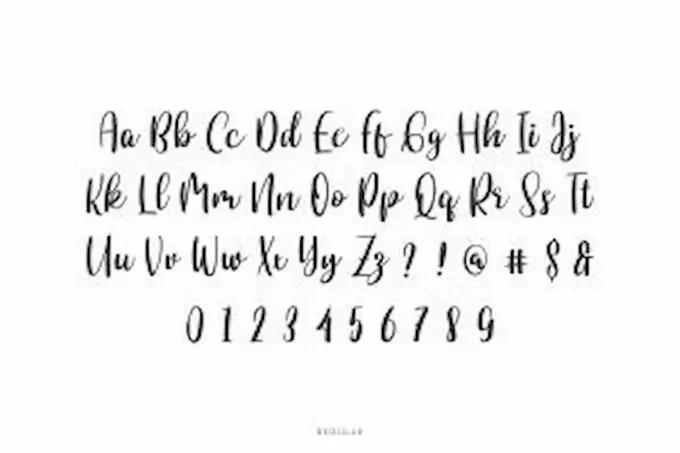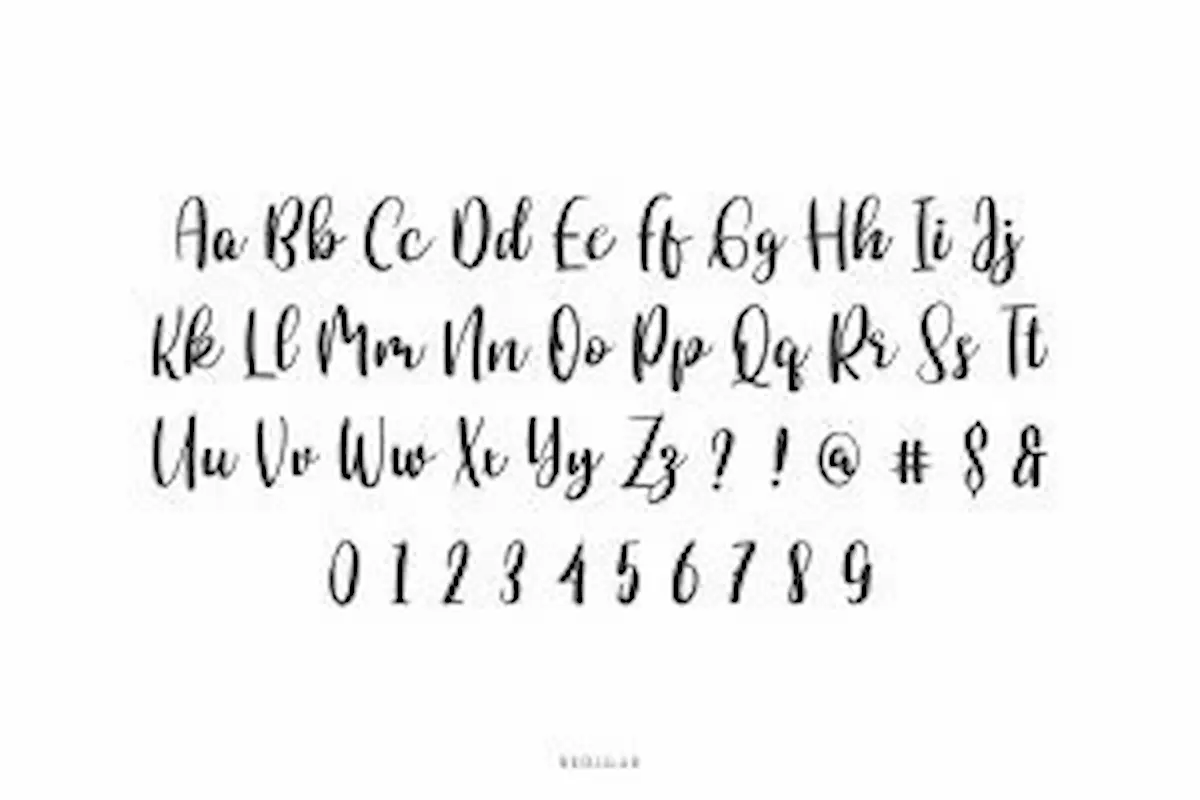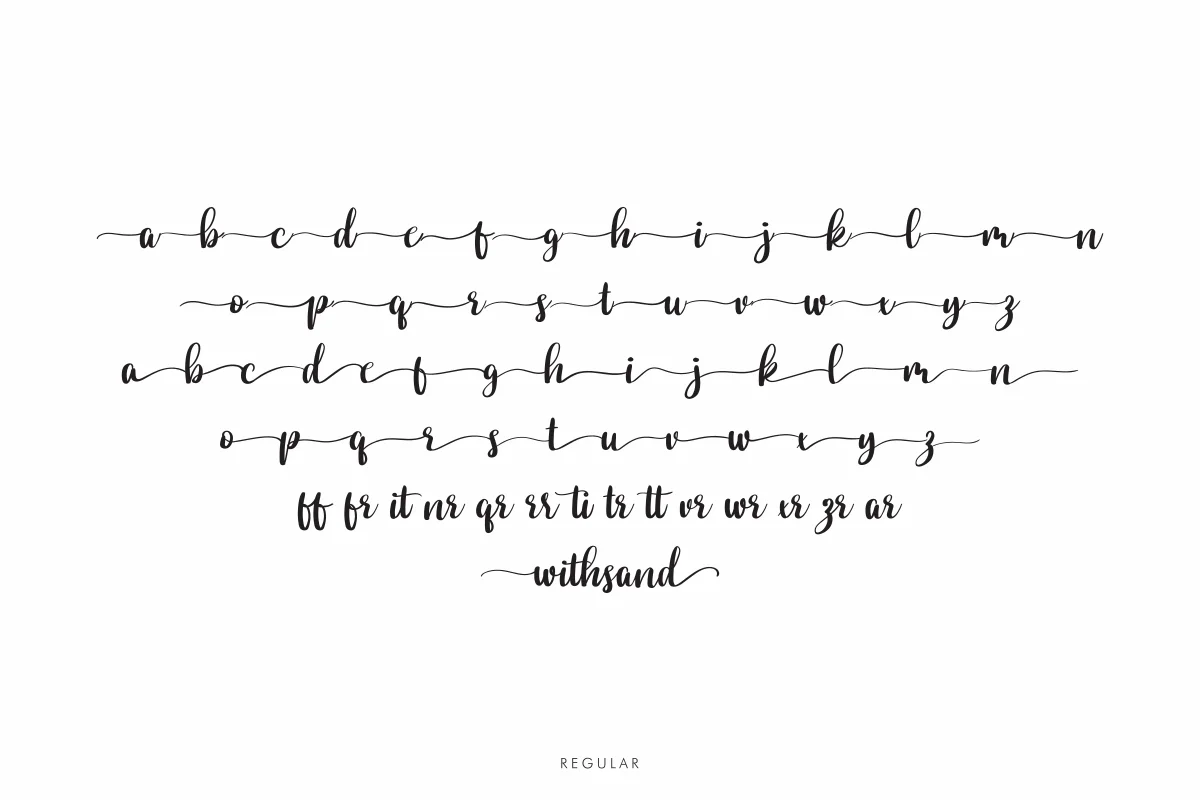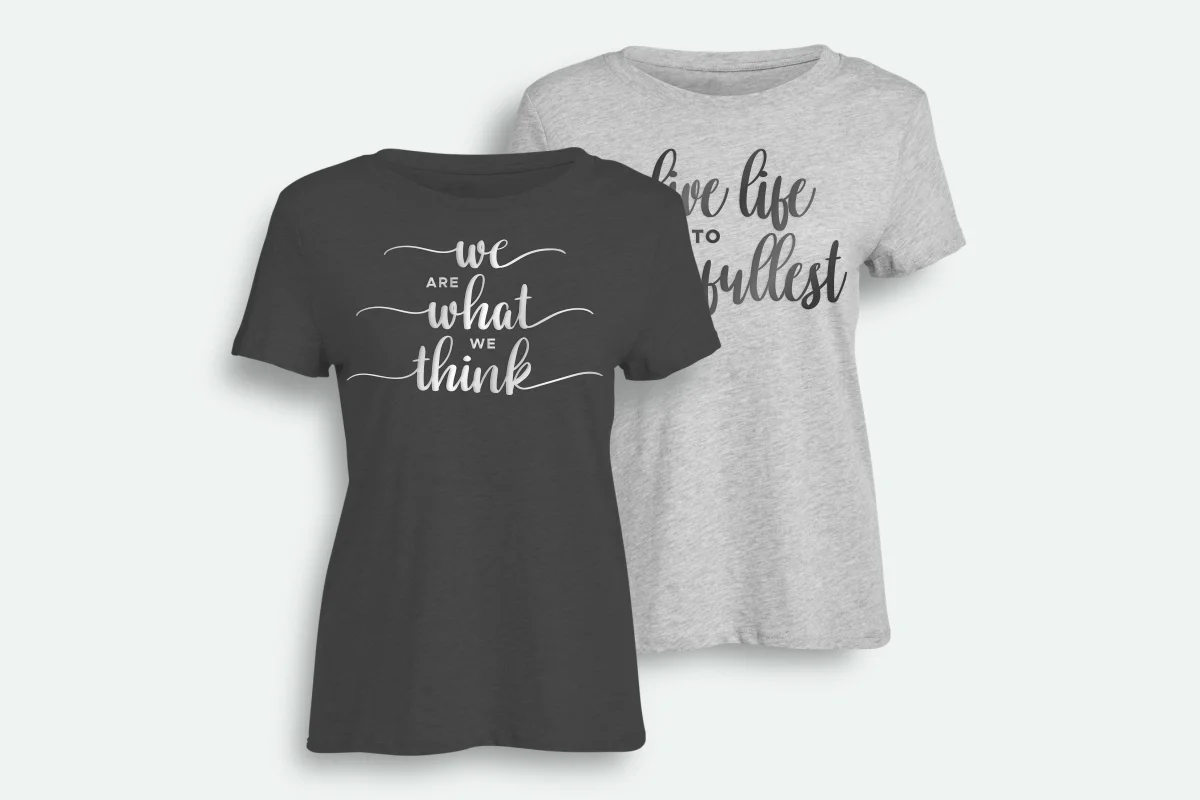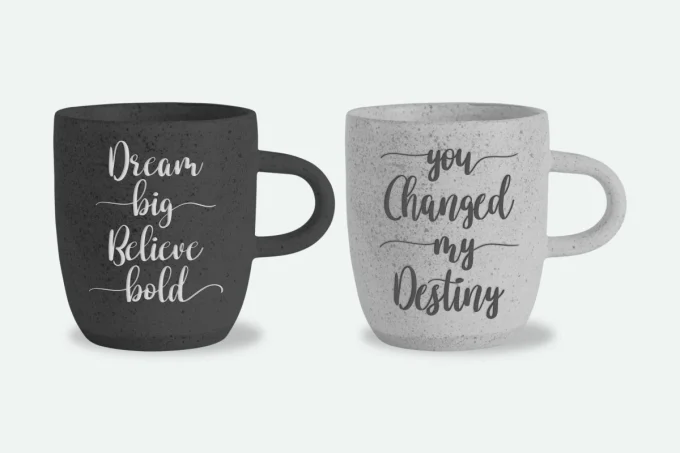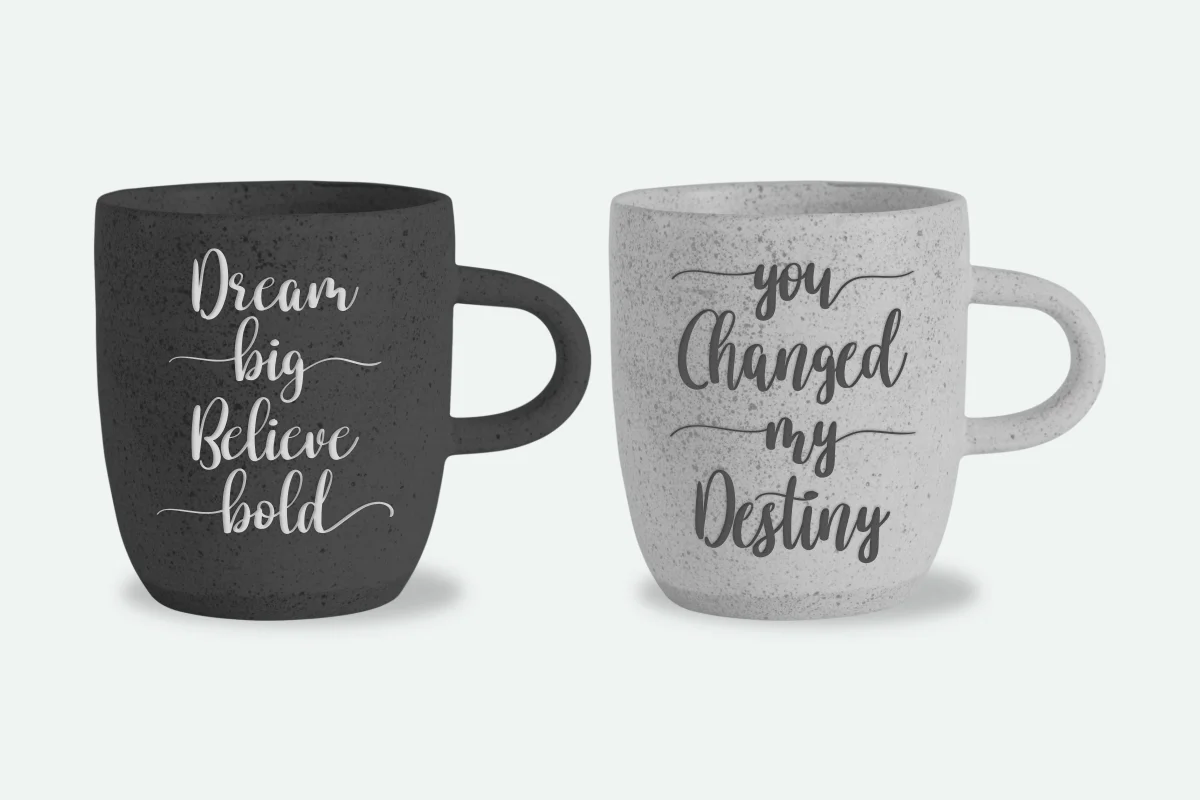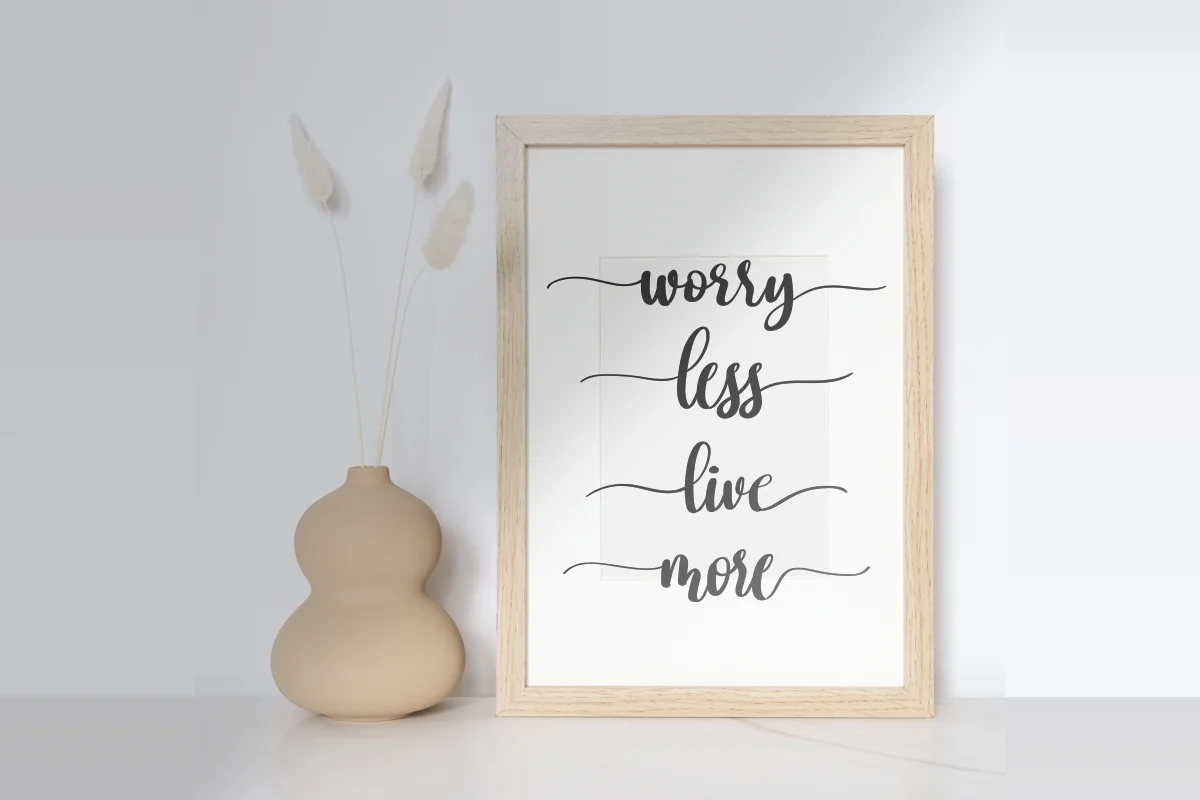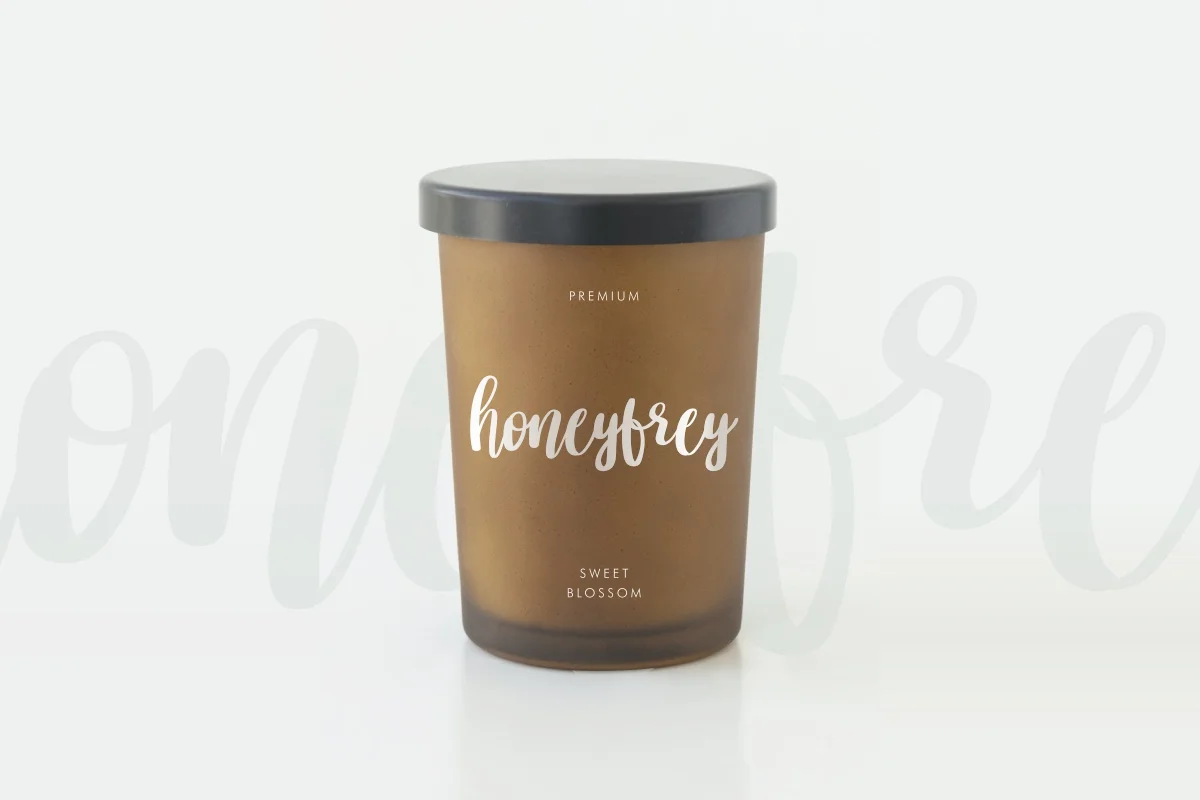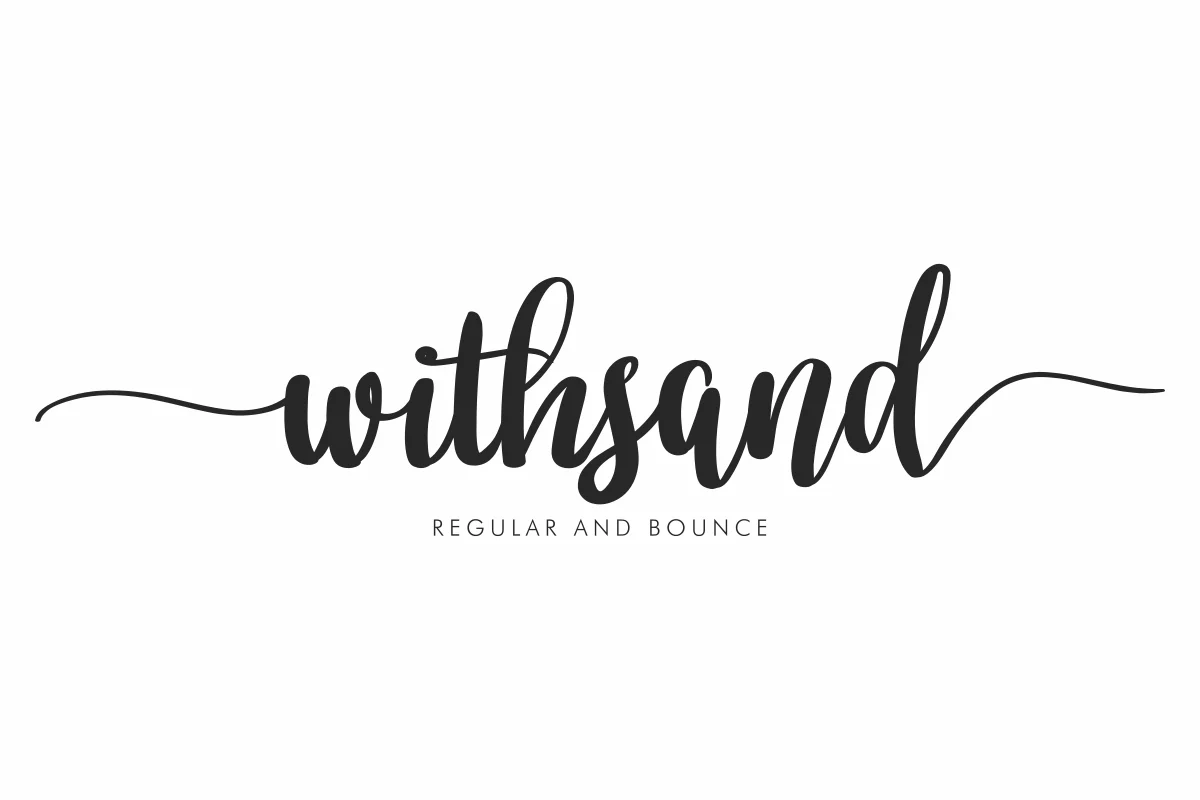
Withsand Font is an original brush calligraphy font by NihStudio since 2020. It is a nice brush font, Made in Indonesia. Download Now
withsand is a calligraphy hand lettering font. Originally made in 2020 by NihStudio Font Designer : Saeful and Sarah. On the package you will get :
Handcrafted here in our Studio , Indonesia. withsand will be great for any projects (require extended license) including : branding, logo, stationery, business card, signage, flyer, brochure etc.
The theme style of the font is elegant, luxury, glamour, gold, vintage, stylish, sophisticated and classic brush style. The font will be match for this typeface: wedding, events, real estate, architect, law firm, florist, gardening, makeup artist, travel, hotel, musician etc